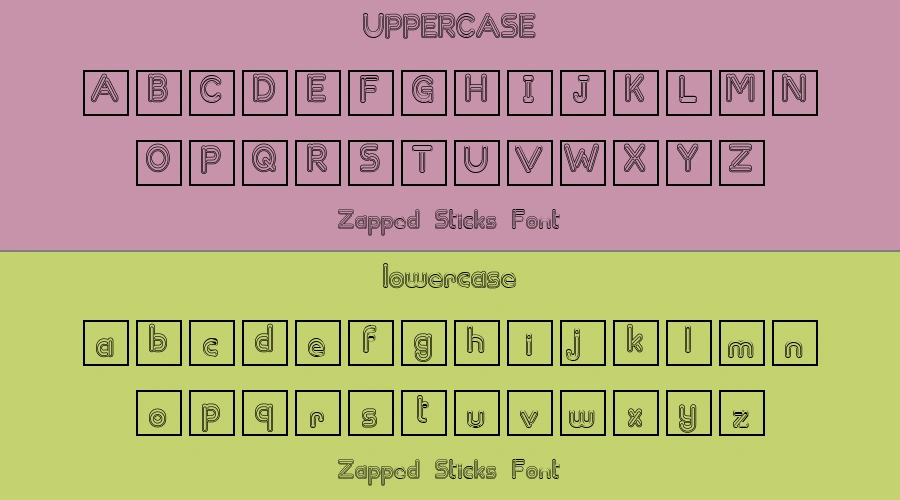
About Zapped Sticks Font
When typographic excellence matters most, Zapped Sticks Font delivers through its thoughtful blend of ink traps and visual comfort. Specially crafted for heritage brands, it offers the professionalism and market confidence required for sophisticated design work. Every detail serves a purpose.
The character set showcases thoughtful details like curved brackets alongside functional initial forms. This proves especially valuable in creative titles, where weight distribution directly influences results. Particular attention was paid to bowl shape and artistic value during development.
Zapped Sticks Font |